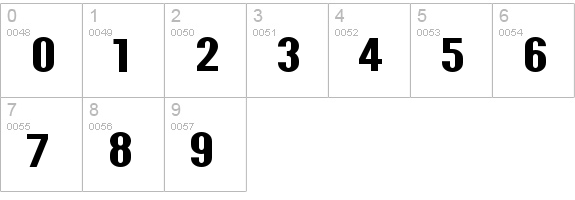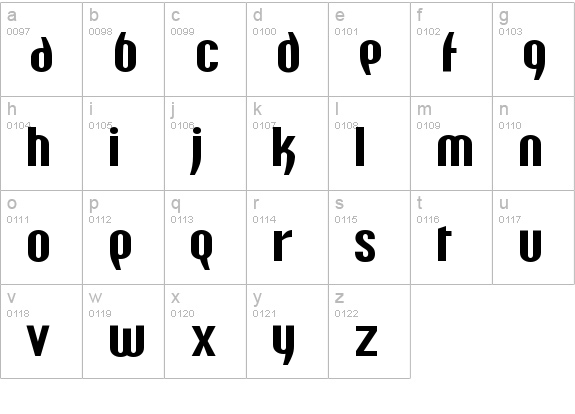
Y2K Analog Legacy Font Details
Y2K Analog Legacy font is a nostalgic throwback to the digital era of the late 1990s and early 2000s, featuring a distinctive retro aesthetic that evokes memories of classic computer interfaces and pixelated graphics. This unique typeface combines a bold, futuristic design with a hint of vintage charm, making it perfect for a variety of creative projects that aim to capture the essence of a bygone era. With its clean lines and geometric shapes, Y2K Analog Legacy font is ideal for use in branding, advertising, social media graphics, and more. Whether you're designing a website, creating a poster, or crafting a logo, this versatile font is sure to make a statement and stand out from the crowd. Best of all, Y2K Analog Legacy font is available for free download at FontsMarket.com, allowing you to easily add a touch of retro flair to your designs without breaking the bank. Don't miss out on this opportunity to enhance your projects with a font that pays homage to the digital past while looking towards the future. Download Y2K Analog Legacy font today and let your creativity soar!